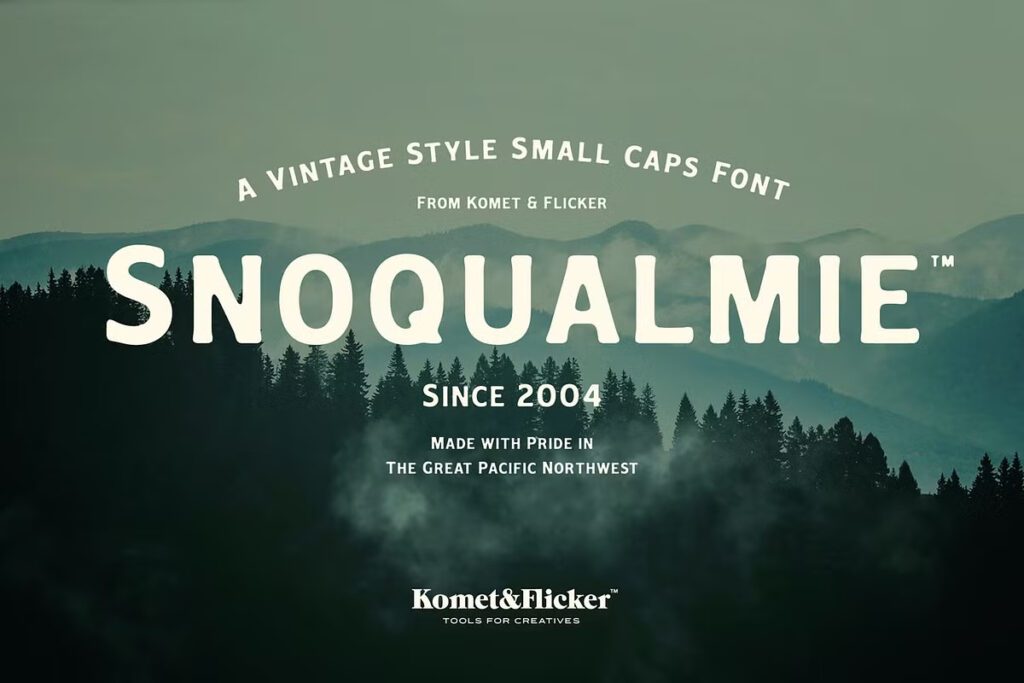
Snoqualmie: A Rustic Vintage-Style Font for Timeless Design
If you’re looking to add a touch of nostalgia and rustic charm to your creative projects, Snoqualmie is the perfect choice. This vintage-inspired font embodies a rugged, well-worn feel, making it ideal for outdoor-themed designs, cozy branding, and artisanal packaging.
Why Choose Snoqualmie?
Snoqualmie stands out for its authentic, vintage appeal, evoking a sense of warmth and adventure. Whether you’re creating branding for a coffee shop, designing labels for craft beer, or crafting apparel with a vintage vibe, this font brings a unique character that resonates with timeless quality.
Here’s what makes Snoqualmie a must-have for designers:
Rustic Appeal: Snoqualmie captures the essence of outdoor adventures and cozy rustic settings. Perfect for projects that need a rugged, handcrafted feel.
Small Caps Typeface: The font’s small caps style adds a touch of refinement to its rugged appearance, making it versatile for both bold headlines and subtle text.
Custom Connecting Words: Snoqualmie comes with a special set of 20 custom glyphs (10 connecting words in two styles), helping to create seamless, cohesive typography.
Perfect For:
Outdoor-Themed Designs: From national park posters to outdoor adventure branding, Snoqualmie’s rustic vibe enhances any outdoor-themed project.
Vintage Apparel: Capture the spirit of nostalgia in your clothing line with Snoqualmie’s timeless letterforms.
Artisanal Beer & Spirits Labels: Add a handcrafted feel to your packaging with this vintage-style font, giving your product a story to tell.
Coffee Shop Branding: Snoqualmie pairs perfectly with cozy, rustic café branding, bringing warmth and authenticity to your signage and menus.
Bring Your Designs to Life
Snoqualmie goes beyond just being a font – it’s a storyteller. Its unique letterforms and custom glyphs provide the polished, cohesive look you need to elevate your creative projects. Whether you’re designing logos, labels, or marketing materials, Snoqualmie will give your work a distinct, memorable style.